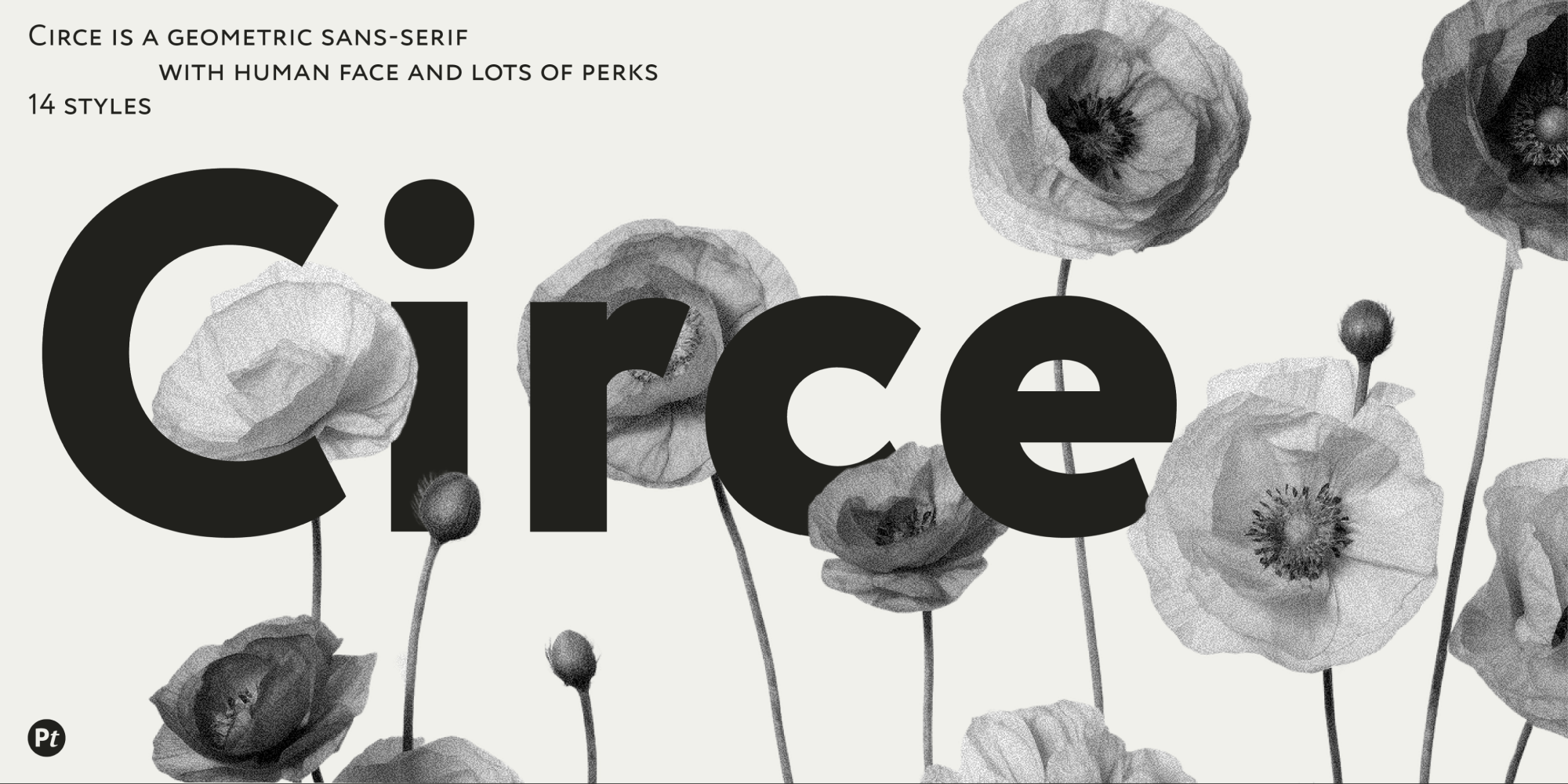
Circe Font is perfect for enchanting projects including mystical branding, magical book covers, fantasy gaming graphics, spiritual wellness materials, mythological artwork, celestial themed designs, feminine empowerment campaigns, and ethereal fashion magazines. This captivating typeface brings ancient wisdom and mystical elegance to any design project.
What makes Circe Font exciting is its masterful evocation of ancient Greek mythology and enchanting feminine power through gracefully curved letterforms. The sophisticated character design features flowing lines and mystical proportions that capture the legendary sorceress's magical abilities while maintaining contemporary readability. This font delivers the perfect balance of mystique and accessibility, creating an atmosphere of wisdom and transformation that speaks to the soul.
The Circe Font family typically includes multiple weights with mythological styling, complete uppercase and lowercase alphabets, numerals, punctuation, and mystical symbols. The design often features elegant curves and ancient-inspired characteristics that enhance the magical aesthetic. Premium versions may include stylistic alternates, decorative flourishes, and additional mythological characters perfect for fantasy and spiritual applications.
Whether you're designing for wellness brands, fantasy publishers, or spiritual movements, Circe Font Free Download delivers the enchanting presence that transforms ordinary designs into magical experiences. Its mystical character makes it ideal for memorable logos and inspirational messaging that connects with ancient wisdom traditions. The font's mythological heritage ensures it communicates transformation and power, making it perfect for any project requiring the spellbinding aesthetic of ancient magic and feminine mystique.